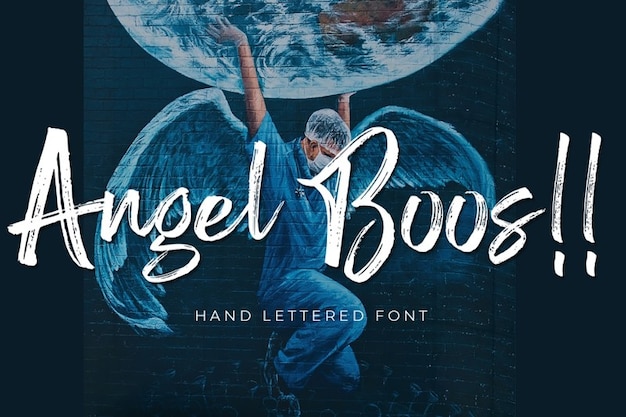
Angel Boos
Angel Boos Font
Struggle Studio
Angel Boos font is like a brush dance in an urban setting—it's calligraphy with an edgy twist. Handwritten with a street-smart vibe, each letter feels like an artist's tag. It's calligraphy that’s been to the city and back, with a raw, urban energy. Perfect for adding that handcrafted, gritty elegance to your designs, this font brings an urban edge to traditional calligraphy.